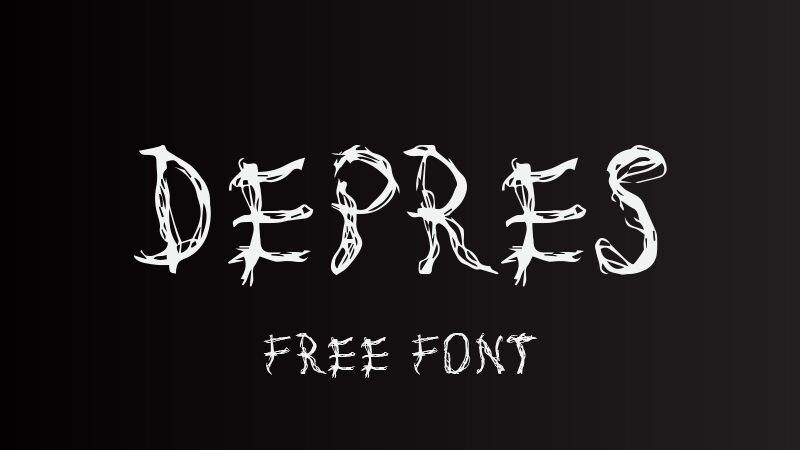
Depres font by GGBotNet is a scary display font with condensed width. Its grunge-inspired style appears totally hand-drawn and with both an organic texture and complex detailing. The creepy text style perfectly combines the mysterious atmosphere with an expressive design that impresses all onlookers. Enjoy and utilize this free font as it adds a new vibe to your next graphic projects.